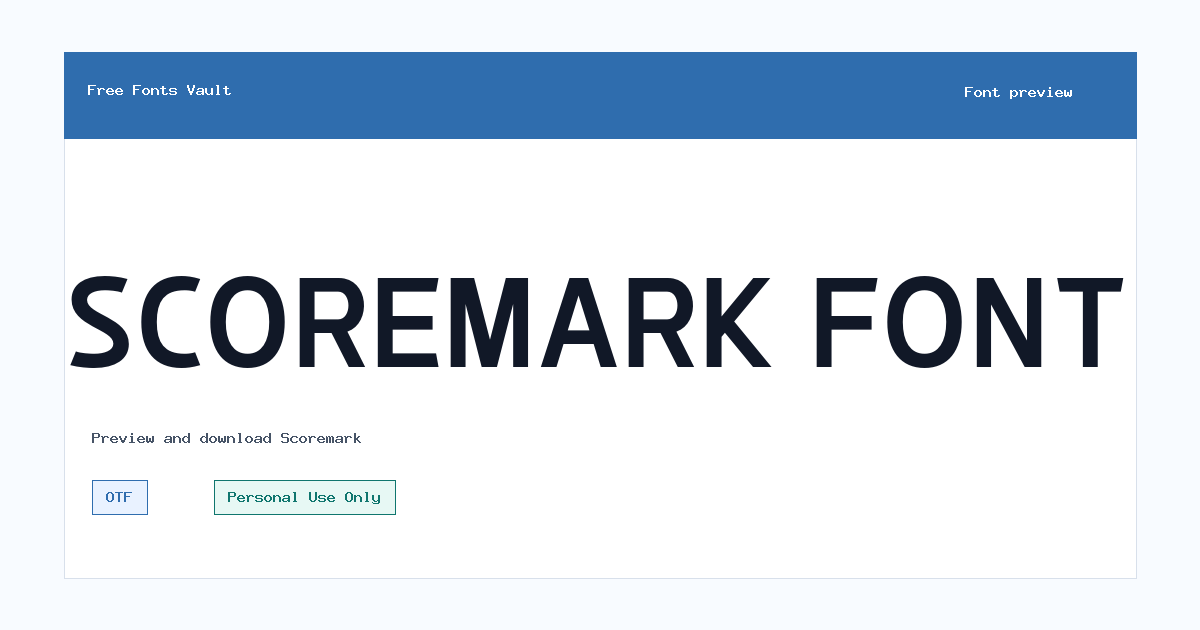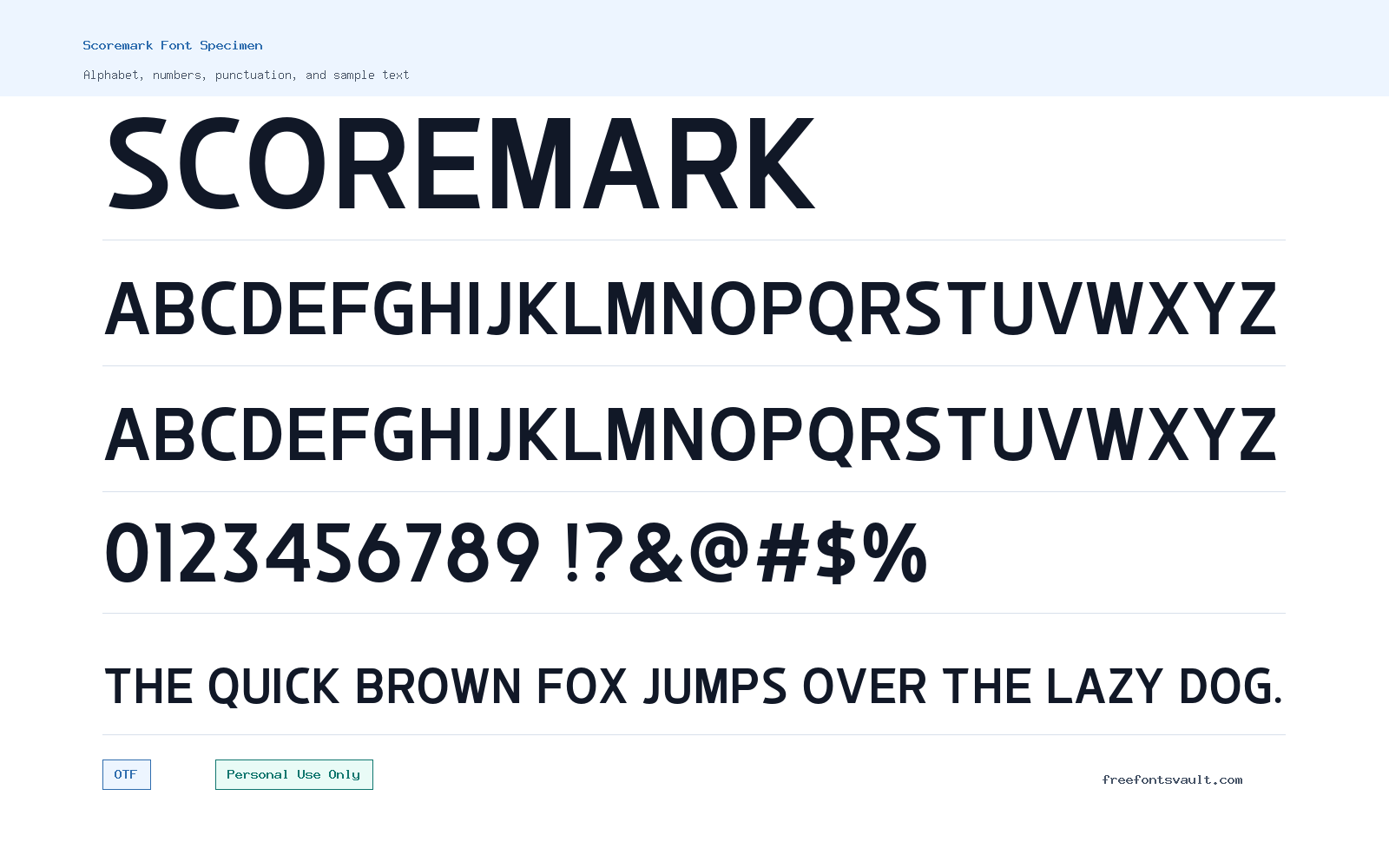
Scoremark
- Designer Dida Ahluddin
- Foundry ahweproject
Scoremark font.
Scoremark is a display font with a strong, attention-ready look, made for short pieces of text where the lettering needs to carry the visual weight. It is best treated as a headline or logo-style typeface rather than a long reading font.
About Scoremark Font
Scoremark works well when you need a font that feels direct, graphic, and built for impact. The family is represented by the regular demo style in OTF format, so it is easy to test in common design apps before using it in a layout. Because it is a display face, its strongest use is in words, names, labels, and compact phrases. Try it for poster titles, social graphics, gaming-style headers, badge concepts, packaging mockups, and personal branding drafts where the type needs to stand out quickly.
For logo work, Scoremark can be useful at the concept stage because it gives a name or title a clear visual presence without needing much extra decoration. Keep the wording short and test different letter combinations before committing to a design. Some display fonts look great in a single word but become harder to read in a long phrase, so check the preview with the exact text you plan to use. If you are designing for web mockups, use it for hero headings, buttons, section titles, or promotional banners, then pair it with a simple sans serif for body copy. This contrast helps the display font stay expressive while the supporting text remains easy to read.
Scoremark is not the best choice for paragraphs, small captions, dense menus, or documents that need quiet readability. It is more effective when it has room to breathe. Use larger sizes, moderate spacing, and enough contrast between the text and background. If the design already has busy textures, illustrations, or strong photo detail, place Scoremark on a cleaner area or add a simple shape behind the text. This keeps the lettering from fighting with the rest of the composition.
When pairing Scoremark, look for a neutral companion font rather than another highly stylized display face. A clean geometric sans serif can make posters and digital graphics feel modern, while a warmer humanist sans can soften the overall tone. For print-style layouts, a plain serif can also work for supporting copy if the display wordmark needs to feel more editorial. The main rule is simple: let Scoremark handle the visual personality, and let the second font handle information.
- Display-focused regular style for strong titles, names, and short phrases
- Works best at larger sizes where the letter shapes can stay clear
- Useful for logo concepts, posters, banners, thumbnails, and web mockup headings
- Poster titles and event-style graphics
- Logo drafts and wordmark experiments
- Social media headers, thumbnails, and promotional images
- Gaming, sports, or bold display concepts where short text needs impact
- Website hero headings and landing page mockups
- Packaging mockups, stickers, labels, and badge-style layouts
Use Scoremark for short, high-impact text. Test your exact word or phrase in the preview, especially if the design contains unusual letter combinations. Pair it with a plain sans serif or simple serif for supporting text, and avoid using it for long paragraphs or small body copy.
What kind of font is Scoremark?
Scoremark is a display font. It is meant for larger, more visible text such as titles, logos, posters, banners, and mockups.
Who designed Scoremark?
Scoremark is credited to Dida Ahluddin. The foundry name listed for the font is ahweproject.
Can I use Scoremark for a logo?
Is Scoremark good for website text?
It can work for web mockup headings, hero titles, buttons, and banners. It is not recommended for long paragraphs or small interface text.
What fonts pair well with Scoremark?
Pair it with a simple sans serif or clean serif. A restrained companion font keeps supporting text readable and lets Scoremark remain the main visual accent.